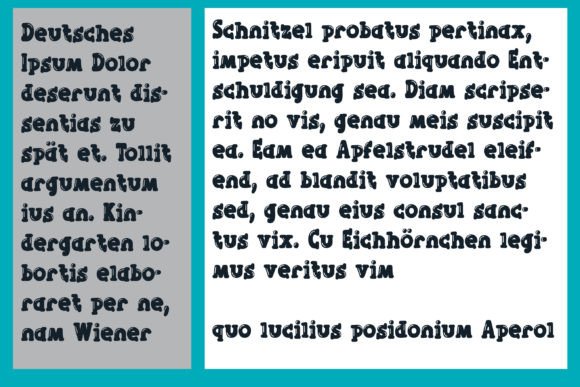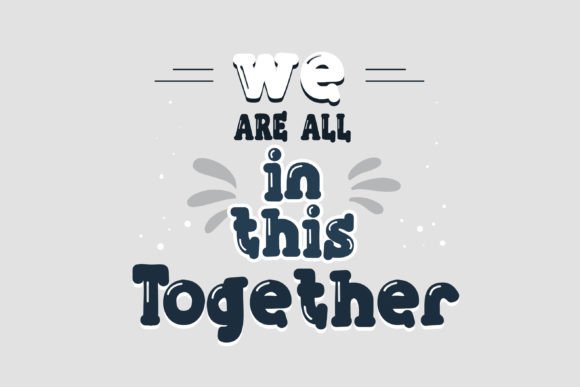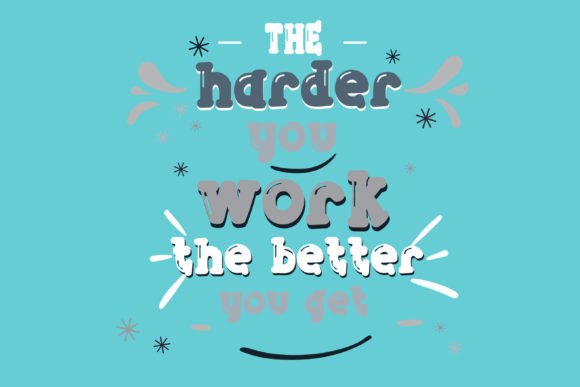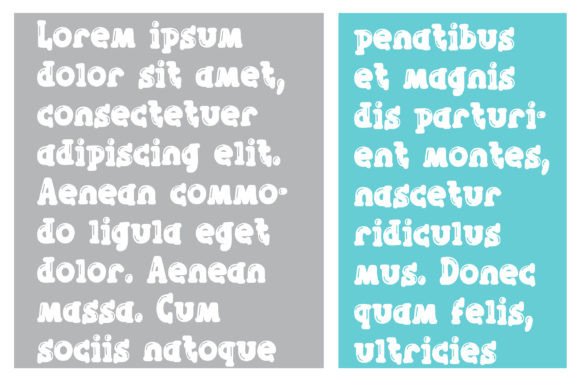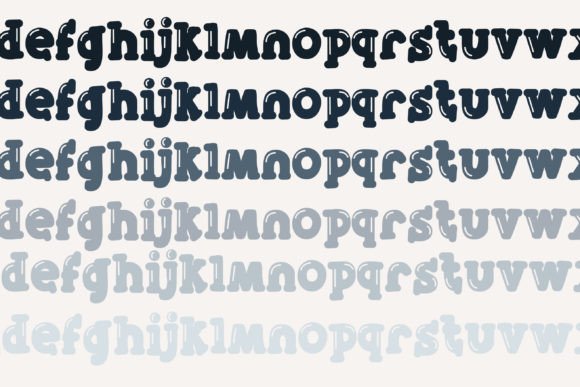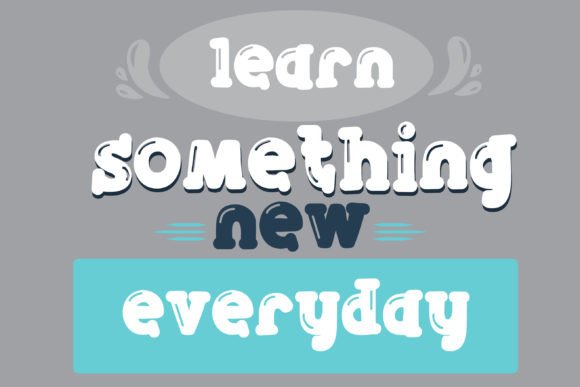
Introducing Glowflies Font: A Hand-Crafted Sans Serif for Creative Projects
Are you tired of using the same old fonts for your creative projects? Look no further than Glowflies Font, a hand-crafted sans serif that’s sure to add a touch of personality to your designs. This chunky, rounded font features big, bold lettering and bold serifs throughout, making it perfect for a variety of applications.
A hand-crafted font is a font that is designed to look like it was written by hand. It’s often used for invitations, greeting cards, and other items where a personal touch is desired. Handwritten fonts can be either formal or informal, and they can be used for a variety of purposes. They add a level of warmth and humanity to a design that’s hard to achieve with more traditional fonts.
Features of Glowflies Font
Glowflies Font is a unique and eye-catching font that’s sure to stand out in any design. Here are some of its key features:
- Chunky and rounded: Glowflies Font has a playful, rounded feel that’s perfect for designs that need a bit of whimsy.
- Big and bold: The font features big, bold lettering that’s sure to grab attention.
- Hand-crafted: The font is designed to look like it was written by hand, giving it a personal and unique feel.
- Highlighted version: A highlighted version of the font is included, allowing you to add an extra touch of flair to your designs.
Uses for Glowflies Font
Glowflies Font is a versatile font that can be used for a variety of creative projects. Here are some ideas to get you started:
- Invitations: Use Glowflies Font to create unique and eye-catching invitations for parties, weddings, and other special events.
- Greeting cards: The font is perfect for creating handmade greeting cards for birthdays, holidays, and other occasions.
- Signs and posters: Glowflies Font is a great choice for creating eye-catching signs and posters for businesses, events, and more.
- Digital designs: The font can also be used for digital designs, such as social media graphics, blog posts, and more.
Tips for Using Glowflies Font
Here are a few tips for getting the most out of Glowflies Font:
- Use it sparingly: Because of its bold and chunky nature, it’s best to use Glowflies Font sparingly to avoid overwhelming the design.
- Pair it with other fonts: Glowflies Font pairs well with other fonts, so don’t be afraid to experiment with different combinations.
- Experiment with colors: The font looks great in a variety of colors, so don’t be afraid to try out different options.
Glowflies Font is a unique and versatile font that’s perfect for designers and crafters looking to add a personal touch to their projects. With its chunky, rounded feel and bold lettering, it’s sure to stand out in any design. Whether you’re creating invitations, greeting cards, or digital designs, Glowflies Font is a great choice. So why not give it a try and see what creative possibilities you can come up with?